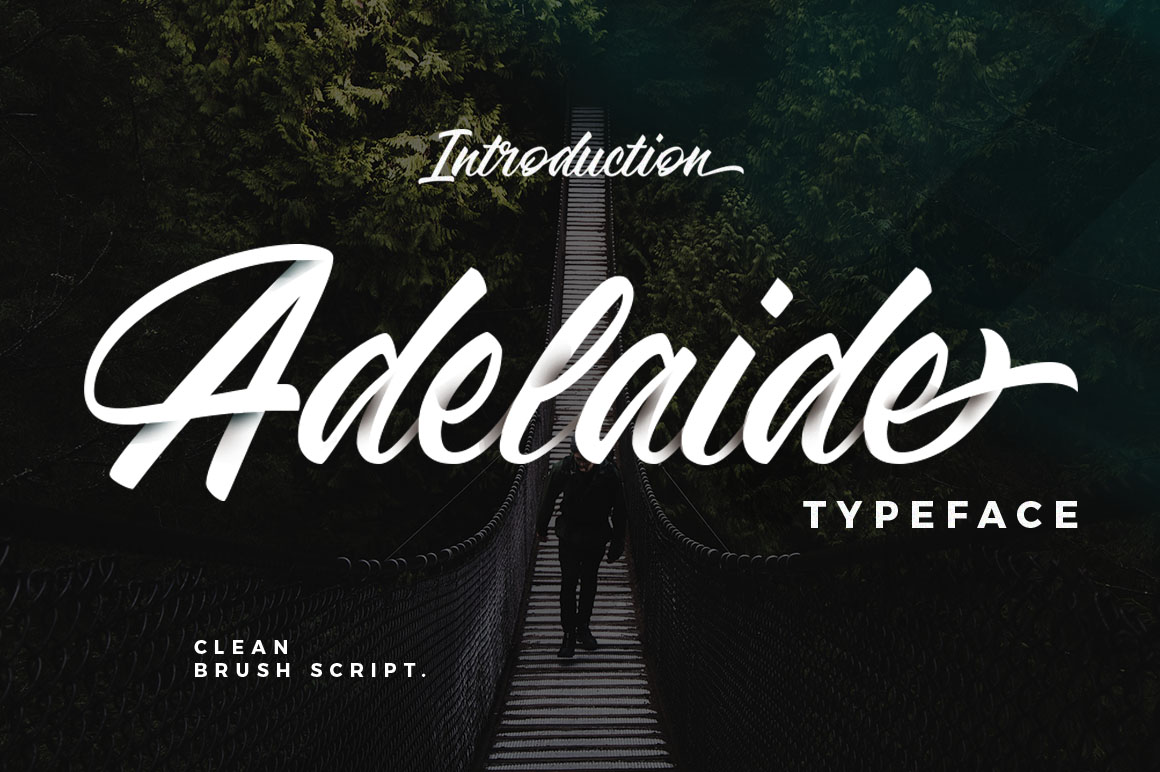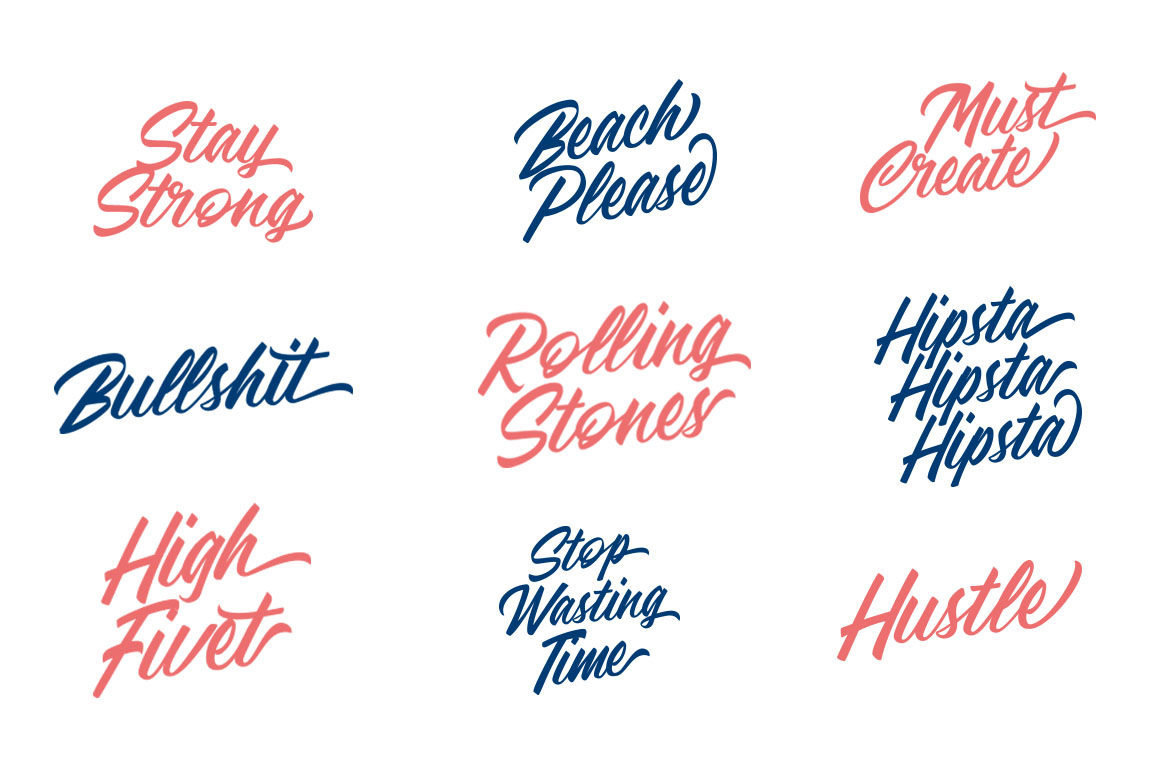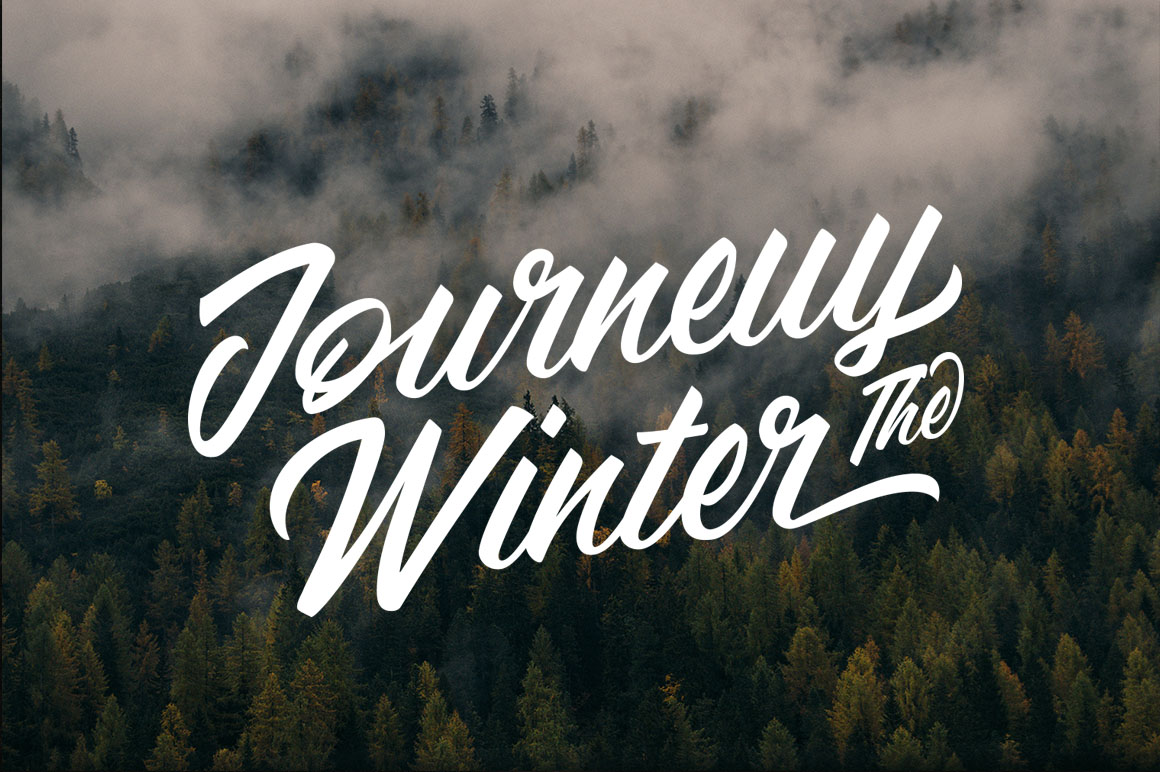
Adelaide Script Font
Adelaide adalah script typeface with sense calligraphy style clean. ideal for logos, poster, branding, quotes, product, merchandise, name tag dll. It contains a full set of lower & uppercase letters, alternative characters, a large range of punctuation, numerals, and multilingual support. The alternative characters in this Adelaide font were divied into several OpenType Feature, Stylistic Sets, and Ligature.Files Included